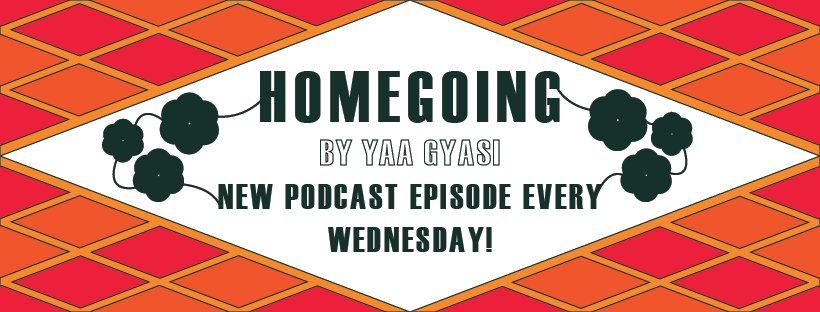
Design ideas and design process
After looking at the book cover I was designing the podcast cover for, I already had an idea in mind where I would utilise the diamond shapes of the cover to create an engaging and aesthetic Facebook banner. I’d also decided to use the cover’s same colour palette to create an effective link between the banner and book.
After using the eyedropper tool to get the exact colour swatches from the book, I decided to use the oranges and reds for the background, and the navy blue for the text since the blue would be easiest to read, due to its darker shade, and the oranges and red would allow me to create eye-catching contrasts in colours which would be highlighted through the diamond shapes I’d planned to use.
For the background base colour, I made sure to use the lightest orange to create a stronger contrast with the darker shades of diamonds that would be placed on top of it.
With the diamond shapes being the highlight of the banner, I decided to outline them in black to emphasise their shape whilst also making it more eye catching, further highlighting the contrasting colours.
As seen above, I then added my text and used a font that I thought was most similar to the font used in the book cover: I used Haettenschweiler.
However, I thought the white diamond text box looked too plain, since there was a mass of negative space, and so I decided to resolve this problem by implementing the flowers from the book cover. I altered them slightly, so they were not completely identical so there was some sort of differentiating factor from the podcast and book. I created the flower shape by placing 6 identical circles into a flower shape, before merging them into one using the pathfinder tool.
Then, I duplicated the flowers and adjusted their sizes to fit within the white diamond text box, varying sizes to fill up majority of the negative space, whilst not making it look cramped. I also varied the sizes and ensured they were never bigger than the text to not draw attention away from the text, a important focal part of the banner, whilst still allowing the flowers to maintain a presence. I then added strokes using the pen and curvature tool to add movement and link the typography, inspired by another element from the original book cover, the flower stems.
I also changed part of the text format, as I thought it initially looked plain and boring, and so I made the author text line have inverted colours, with a white fill and dark blue outline; I thought this was especially effective as it not only made the title look more exciting but highlighted the author’s importance.